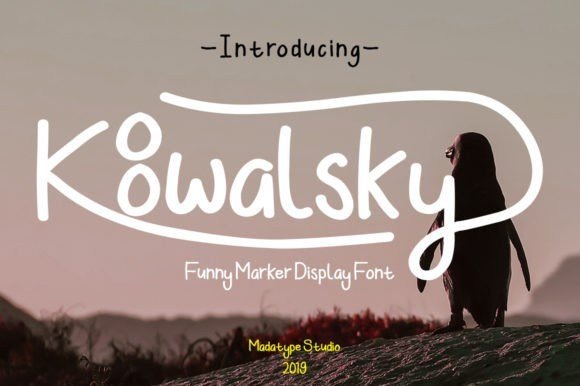
Koowalsky Handwritten Font
Hello there, Thank you for downloading Koowalsky. Koowalsky is a fun and bold display font with an adventurous feel. It will turn any design idea into a true stand out!